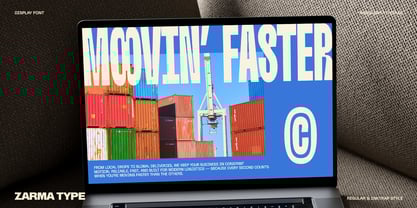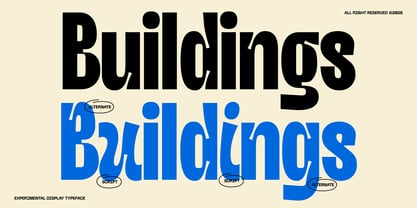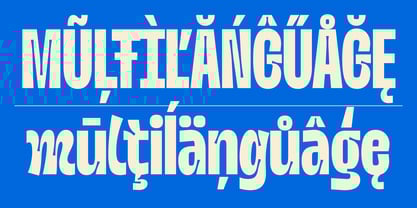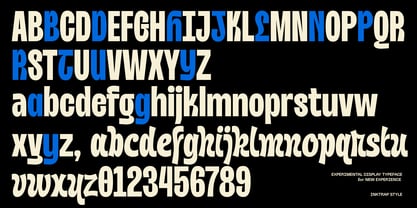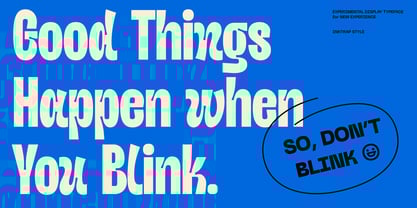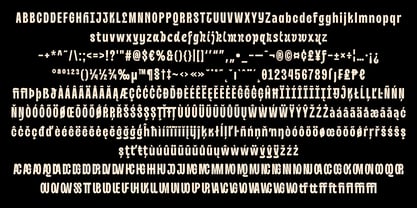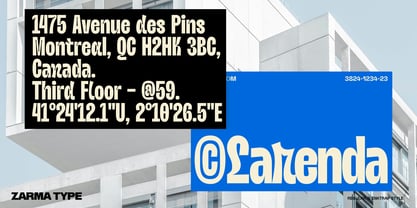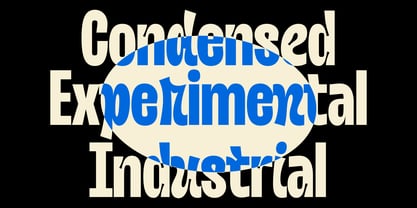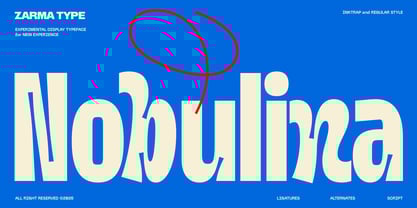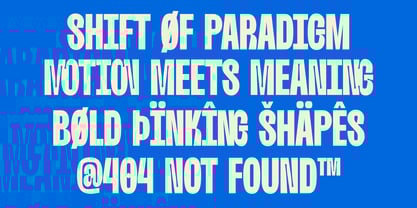
Nobulina
by Azzam Ridhamalik
The Nobulina Font Family was designed by Azzam Ridhamalik and published by Azzam Ridhamalik. Nobulina contains 2 styles and family package options.
Nobulina is more than just a typeface—it’s a collision of contrast and control. With condensed sans letterforms pressed tightly beside inktrap-laced strokes and script-like alternates, this font doesn’t ask for attention—it demands it. Designed to push against traditional boundaries, it speaks to creators who work at the edge of structure and chaos. This combination font offers two distinct voices in one system, letting you shift from mechanical strength to expressive movement with ease. Its sharp geometry and bold proportions make it a reliable choice for brutalist and industrial aesthetics, while the script alternates introduce rhythm and personality. Nobulina invites you to design loud and unapologetically bold.